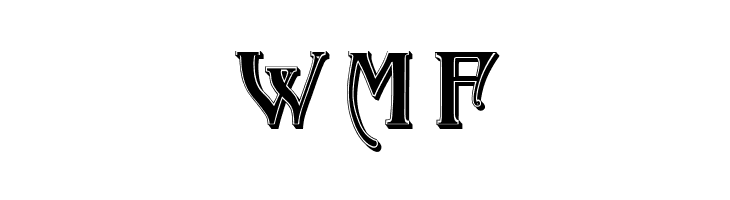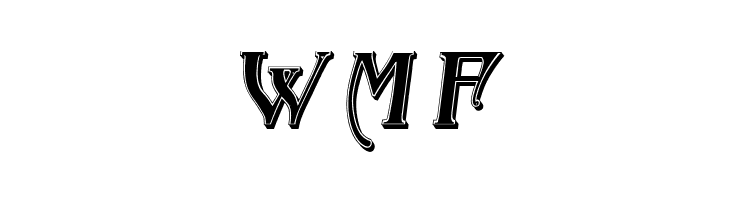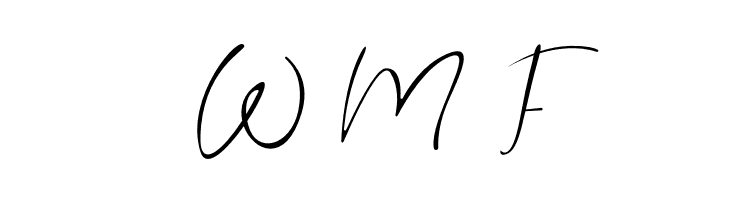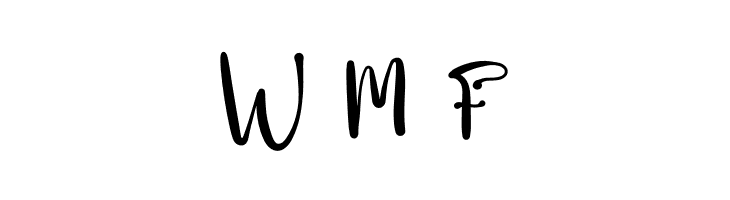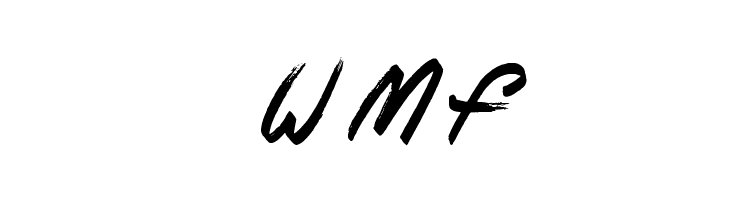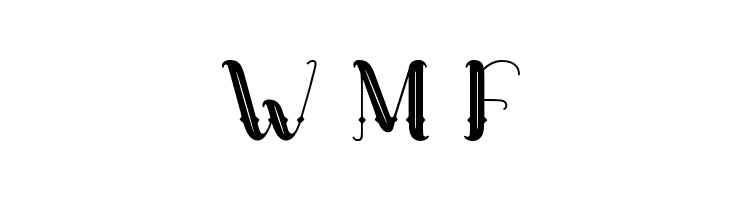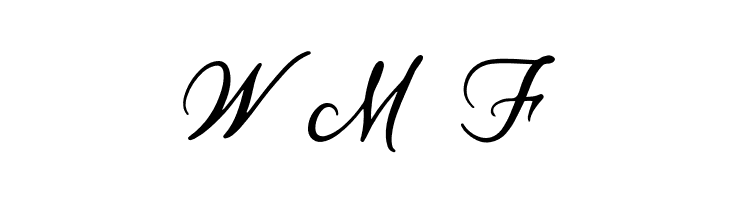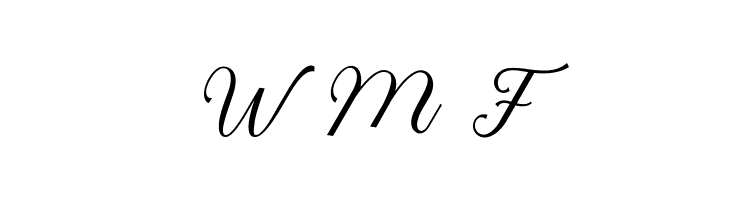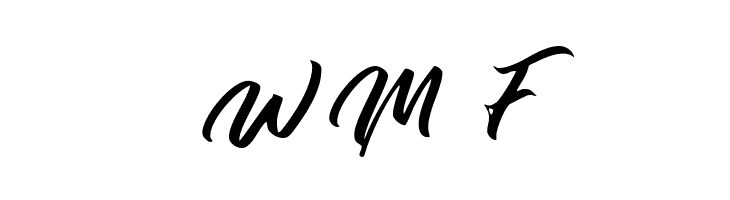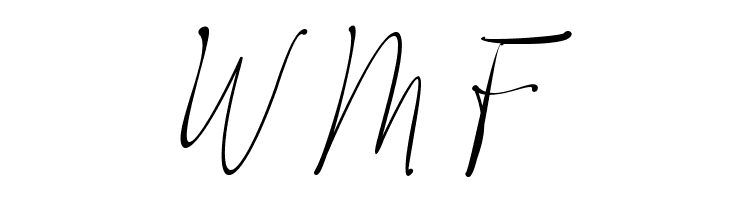
A bold, brush-style font with dynamic strokes and a handwritten feel.
A bold, angular font with a medieval, knightly aesthetic.
A cursive, handwritten font with elegant, flowing characters.
A bold, playful font with a hand-drawn, brush-like texture.
Ornate, monogram-inspired font with royal and decorative elements.
A bold, expressive handwritten font with fluid, cursive strokes.
A playful and elegant script font with flowing, cursive letterforms and moderate contrast.
A playful and whimsical font combining script and display elements.
A decorative serif font with elegant curves and bold serifs, ideal for sophisticated designs.
A bold, decorative font with intricate details and a strong presence.
A bold, brush-style font with dynamic and energetic strokes.
A bold, distressed stencil-style font with an industrial feel.
An elegant, cursive font with fluid strokes and a sophisticated style.
An elegant, cursive script font with a flowing, handwritten style.
An ornate and decorative font with elaborate swirls and flourishes.
An ornate and decorative font with intricate swirls and flourishes.
A modern cursive font with elegant, flowing letters and smooth curves.
A playful and decorative font with elegant, dotted characters.
A playful, decorative font with bold strokes and dotted embellishments.
An elegant and flowing script font with ornate uppercase and smooth lowercase letters.
A bold, vintage-inspired font with sharp serifs and high contrast, perfect for striking headlines.
An elegant, cursive font with fluid, connected strokes and a refined appearance.
An elegant, flowing script font with graceful curves and a sophisticated style.
A graceful, flowing script font with a sophisticated, handwritten style.
A dynamic, cursive handwritten font with a bold and fluid style.
An elegant, handwritten font with flowing, graceful characters.
A sophisticated script font with flowing, cursive characters and elegant curves.
A graceful script font with fluid, connected strokes and elegant curves.
A bold, expressive handwritten font with dynamic strokes.
A modern, high-contrast decorative font with elegant and artistic elements.
A bold, decorative italic font with intricate serifs and flourishes.
A bold, decorative font with medieval-inspired details and high contrast strokes.
A dynamic, brush-style font with expressive strokes and elegant curves.
An intricate and decorative blackletter-inspired font with modern elements.